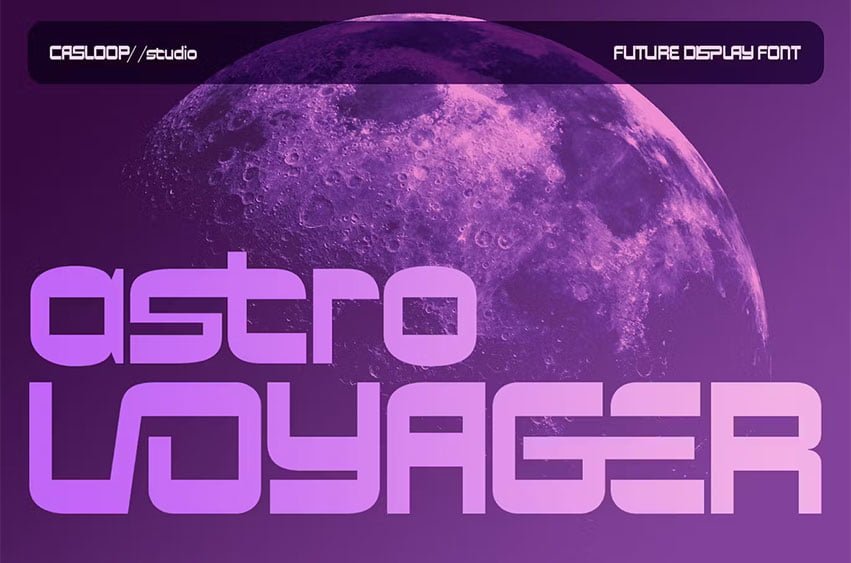
Astro Voyager Font typeface has space and futuristic feel is bold and light on the eyes. The emphasis is on dynamic angles and curves but sparse proportions as a sign of a future picture. With the principle of a future that is minimalist and sharp in character, there are also some artistic essences contained in beautiful and humanist ligatures. Easy to read and interpret because the form is still classified as proper and resembles the original form of Latin letters. If you have a project with the theme of the future and all things technology today. This typeface is one of your top choices. The apparent future standard makes the design you make no need for any further explanation orally.
Astro Voyager Font Preview